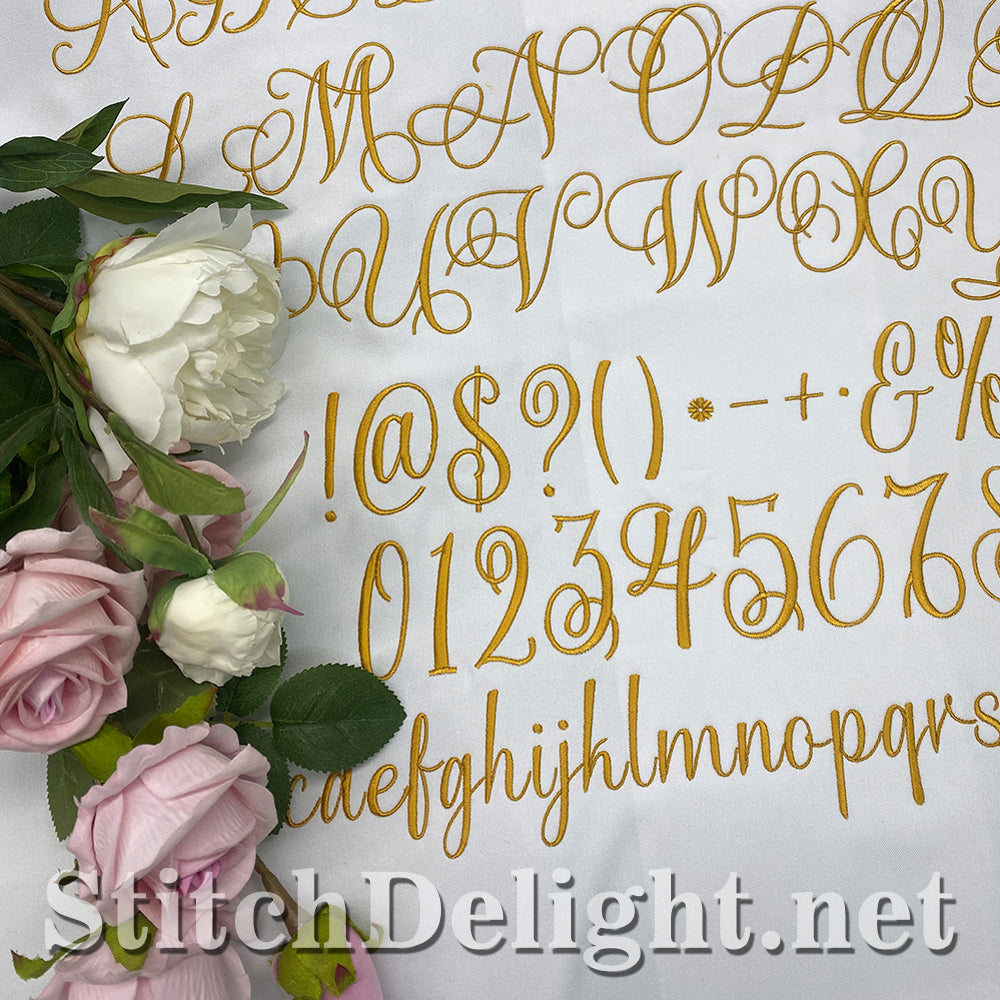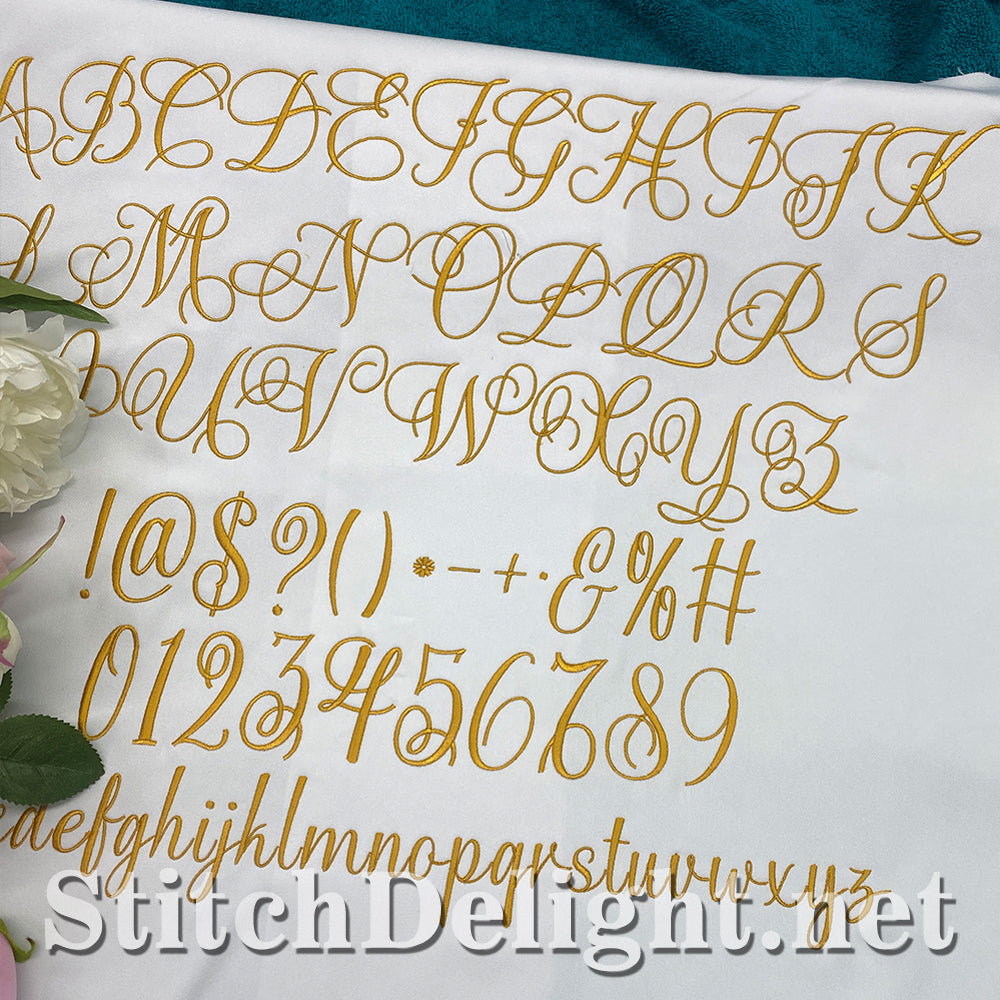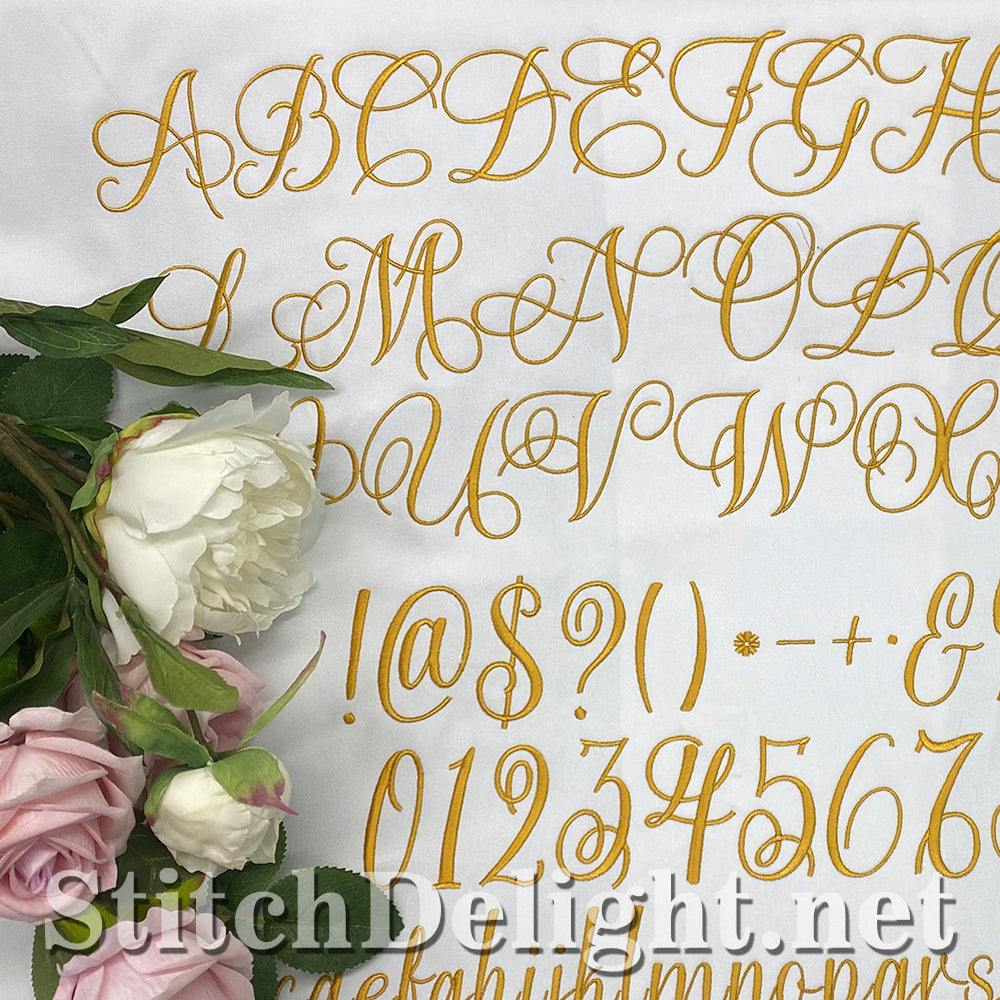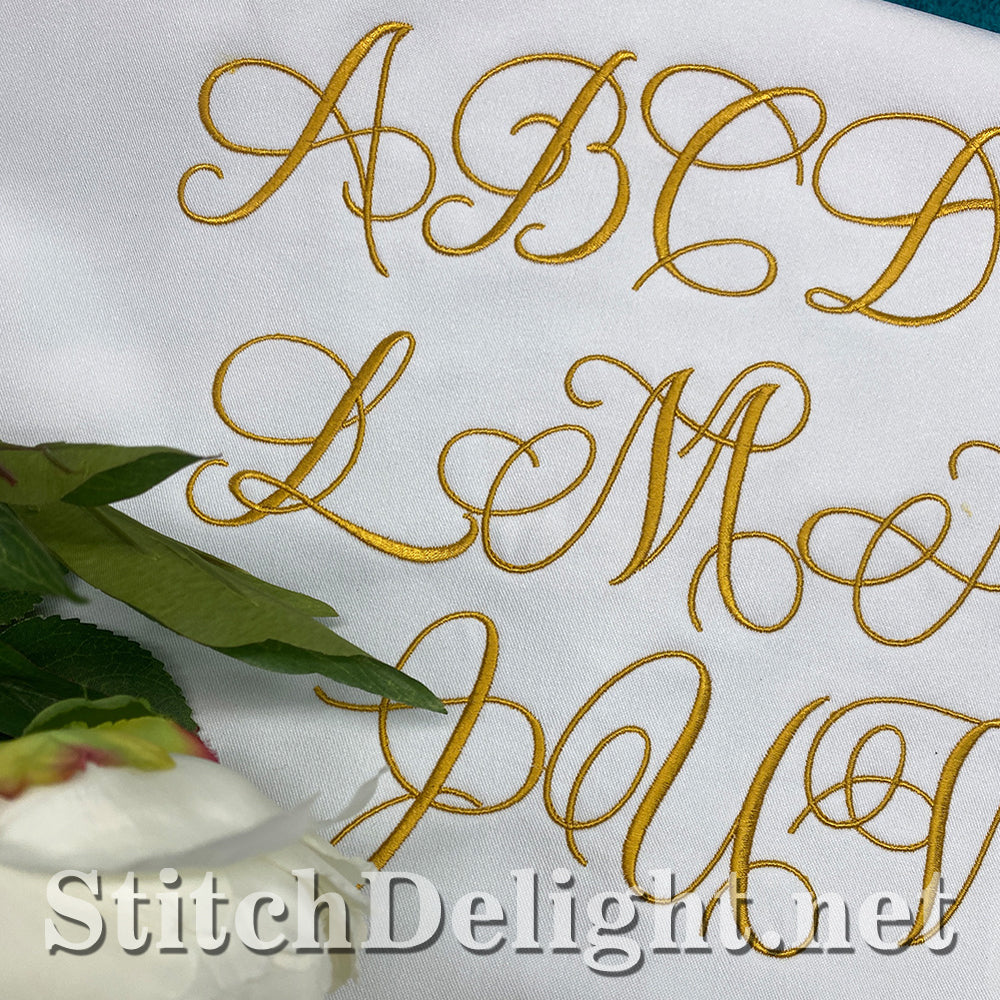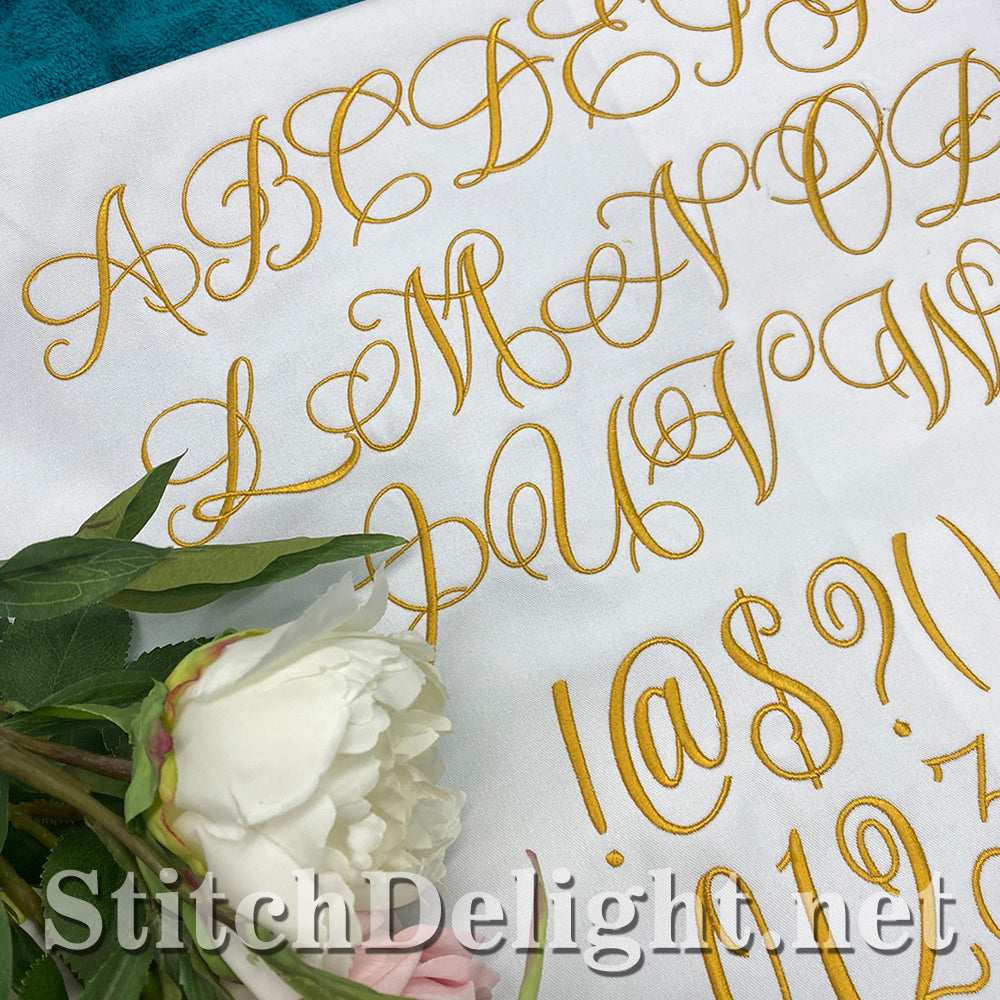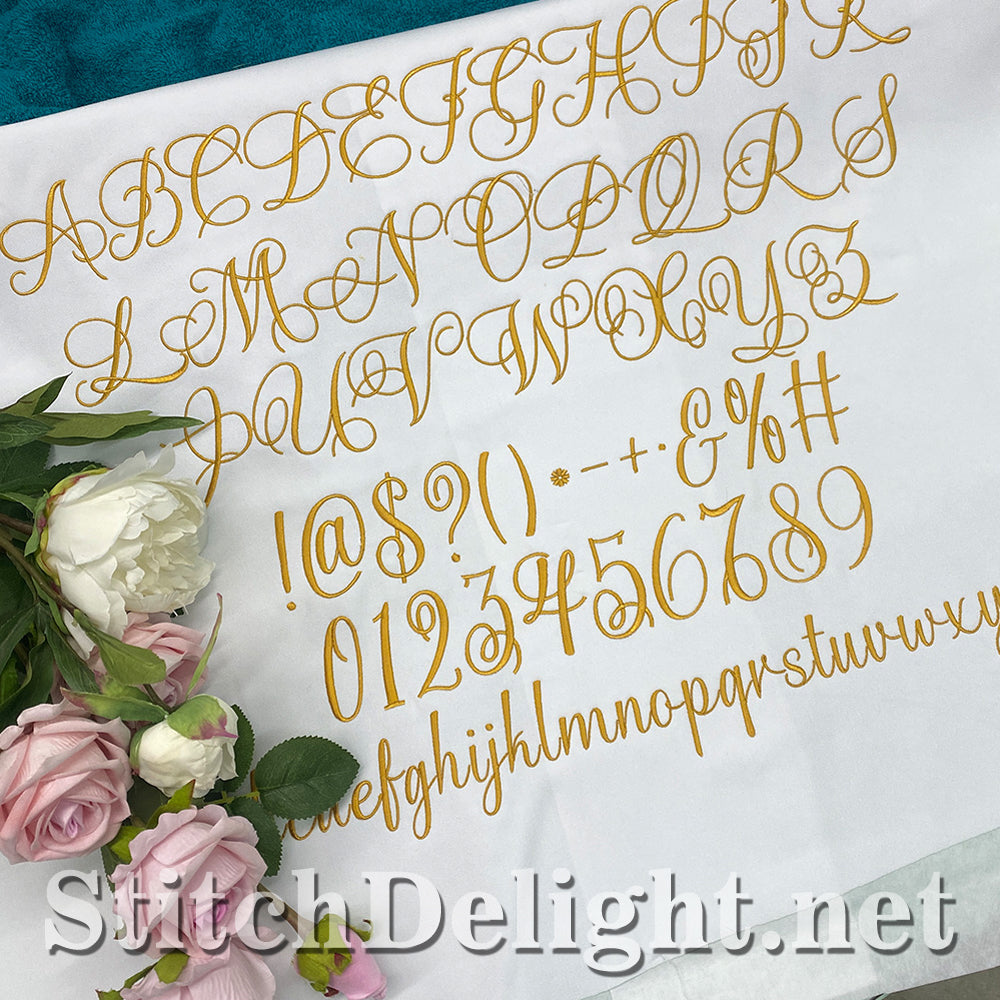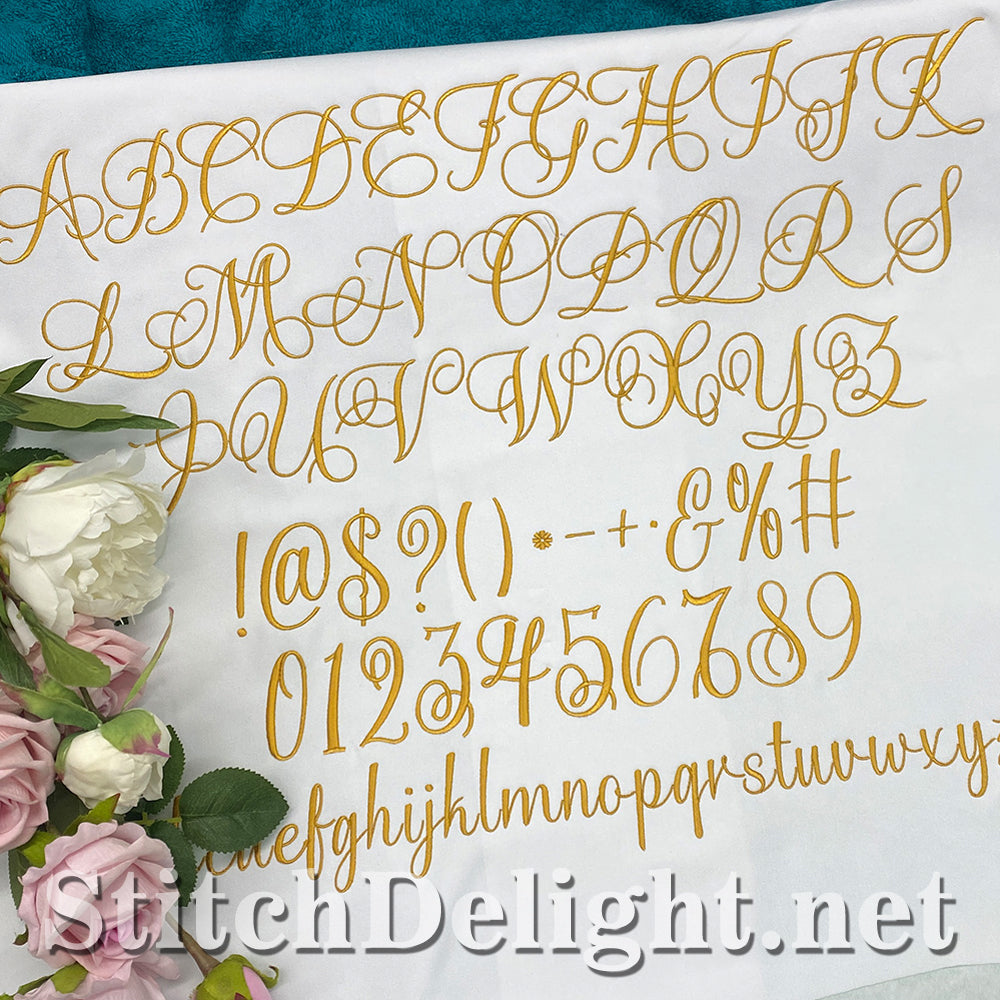
Elegance is at the forefront with this stylish font. Perfect for wedding cards, announcements and for branding your BnB's linnen!
With an average height of 1" for numbers and lowercase letters and 2.1" for uppercase letters, this font is perfect for all your small text needs. This is also the same font we used in SDS5502 Enchanting Birth Announcement.